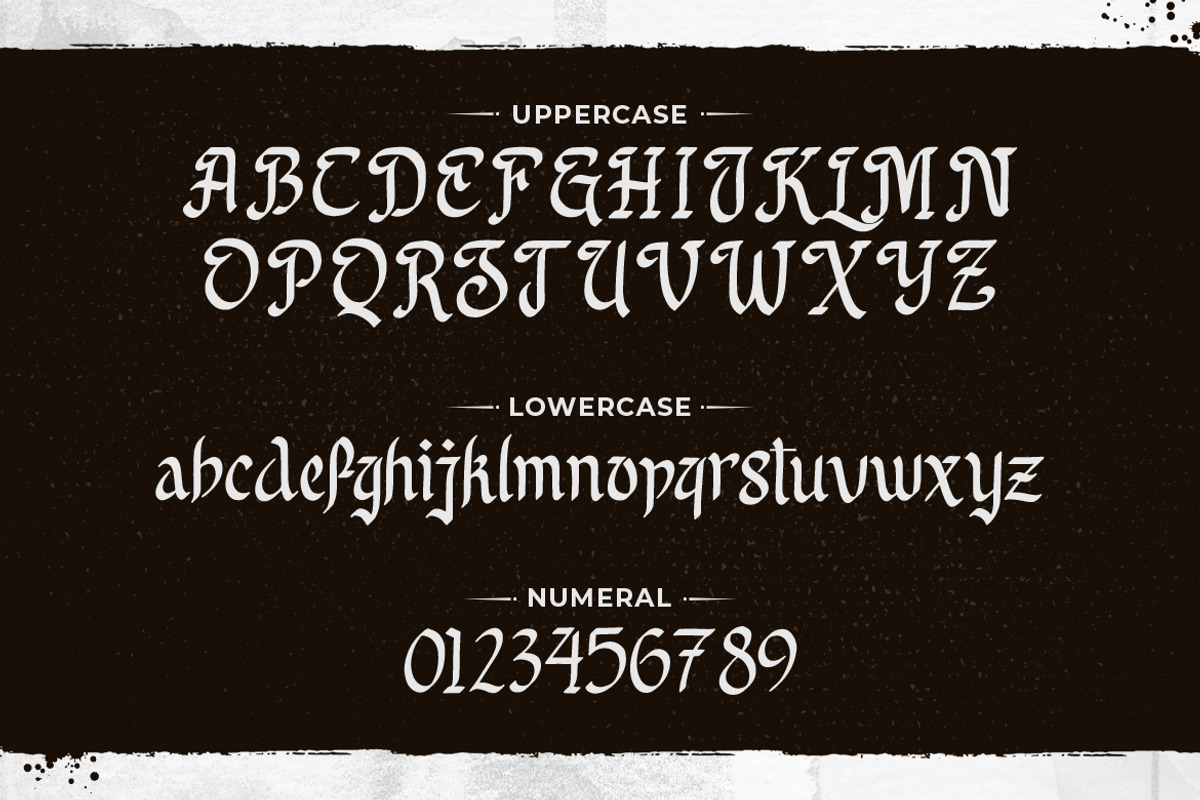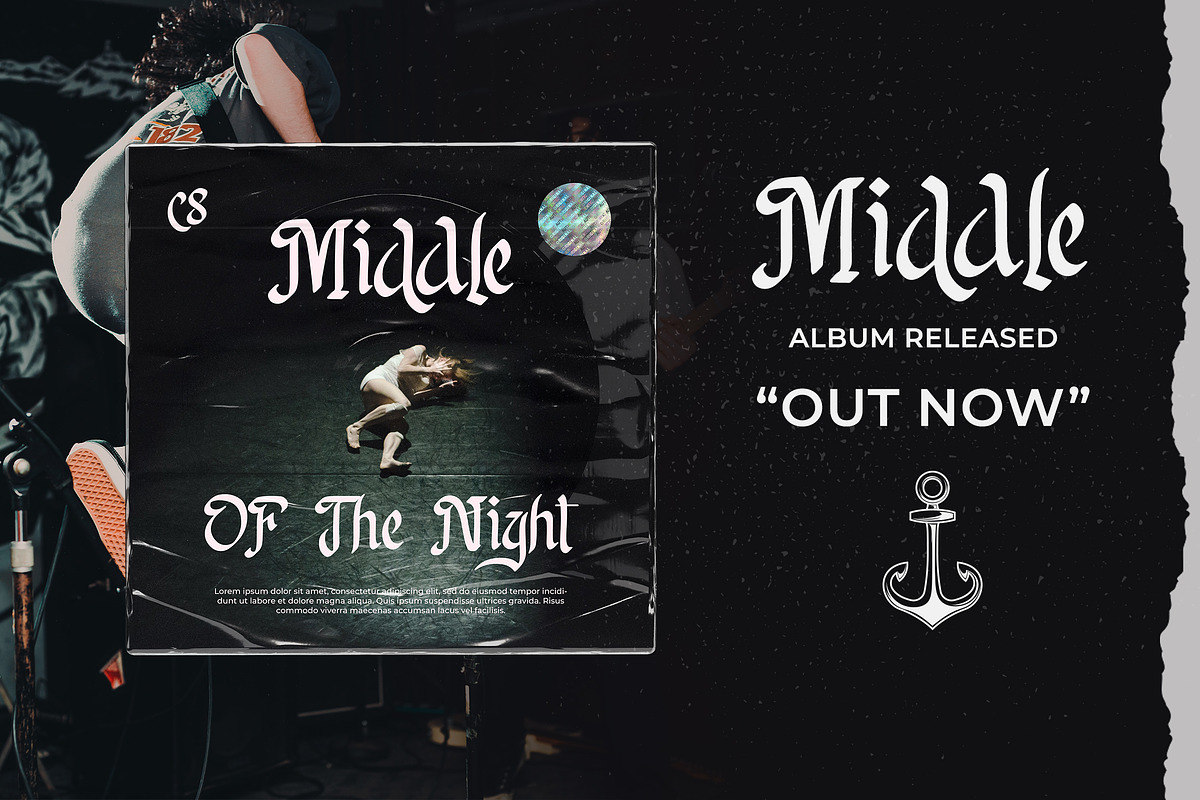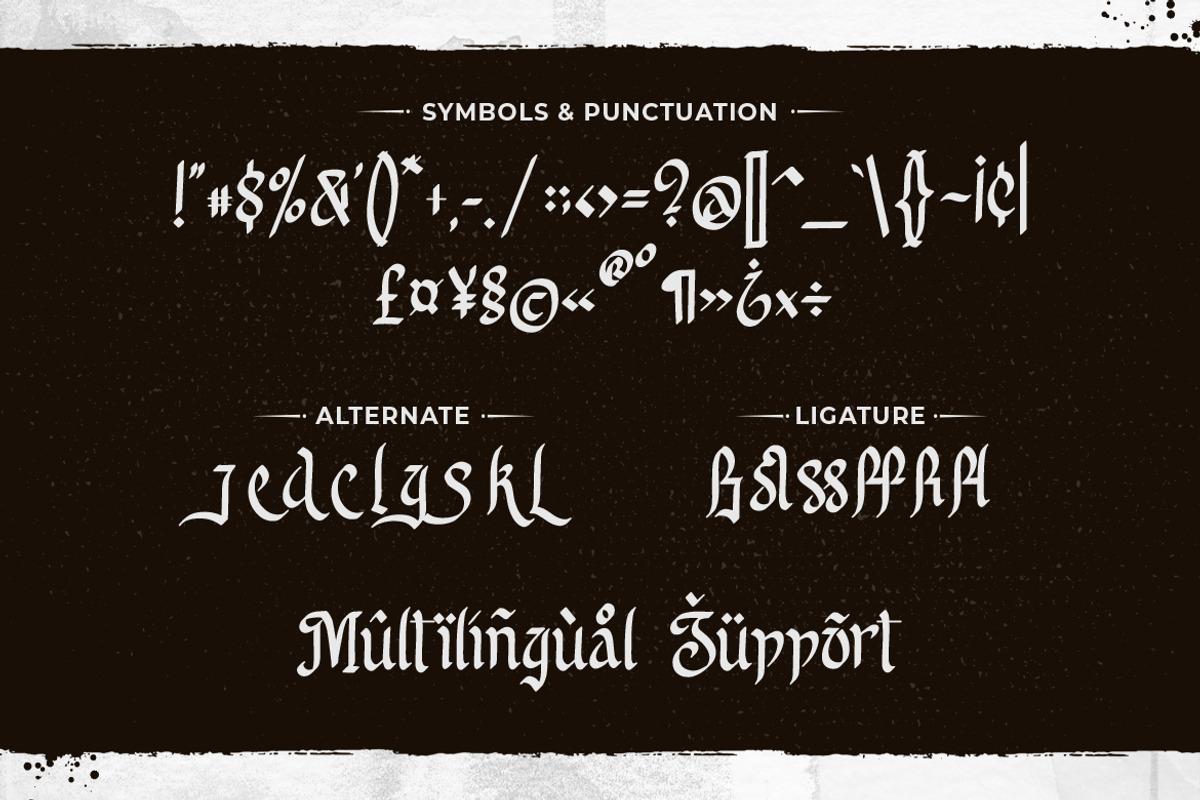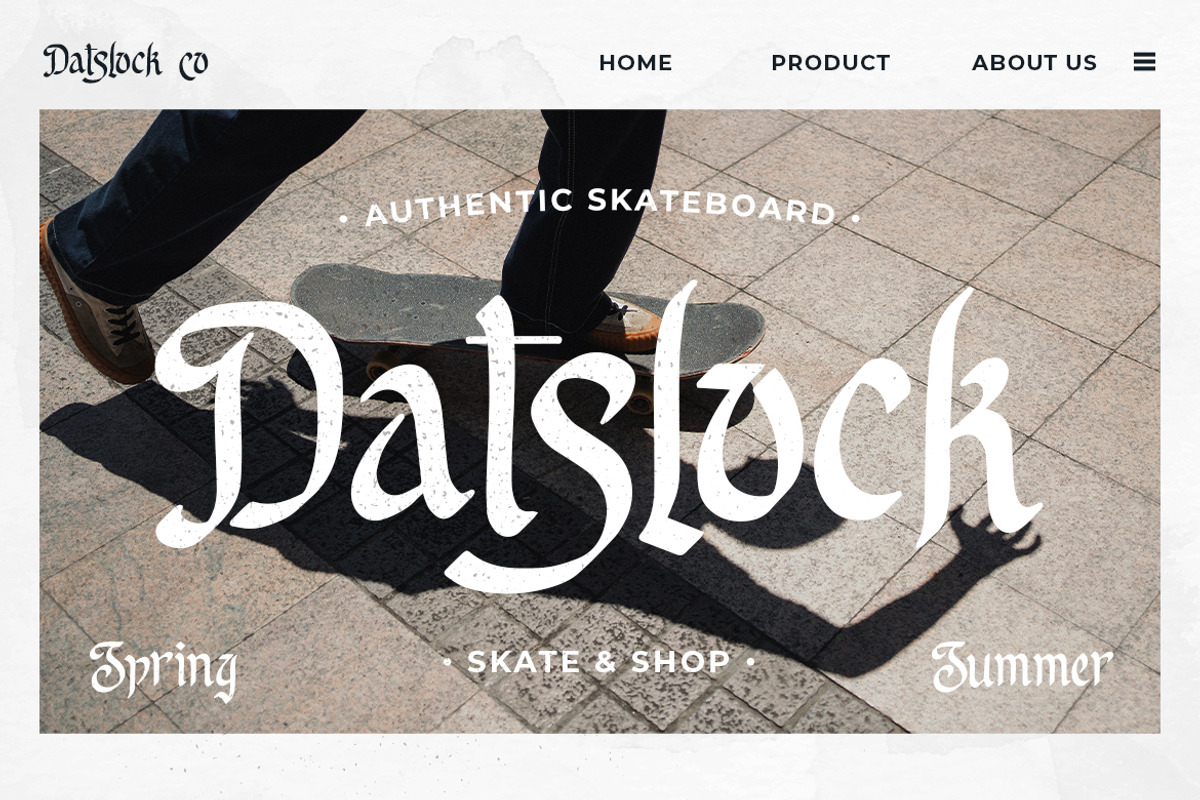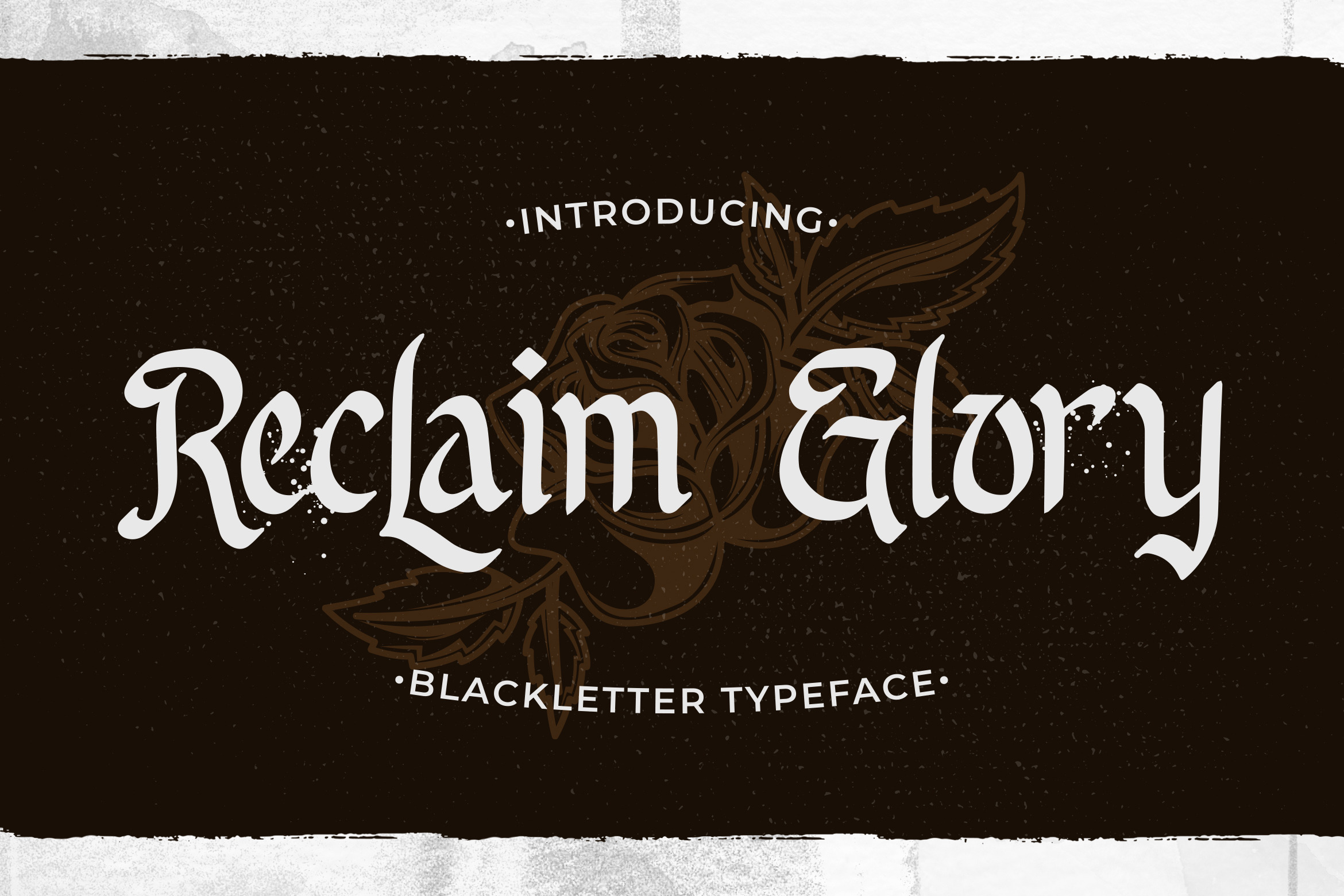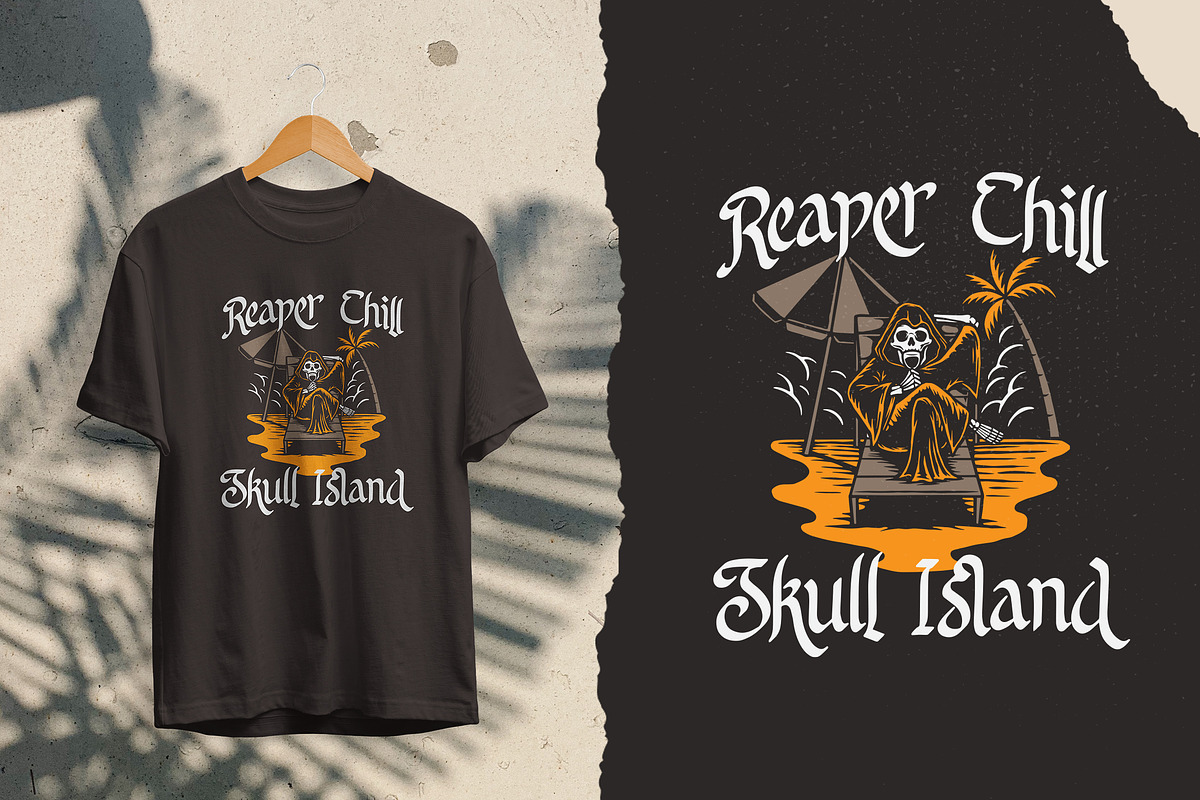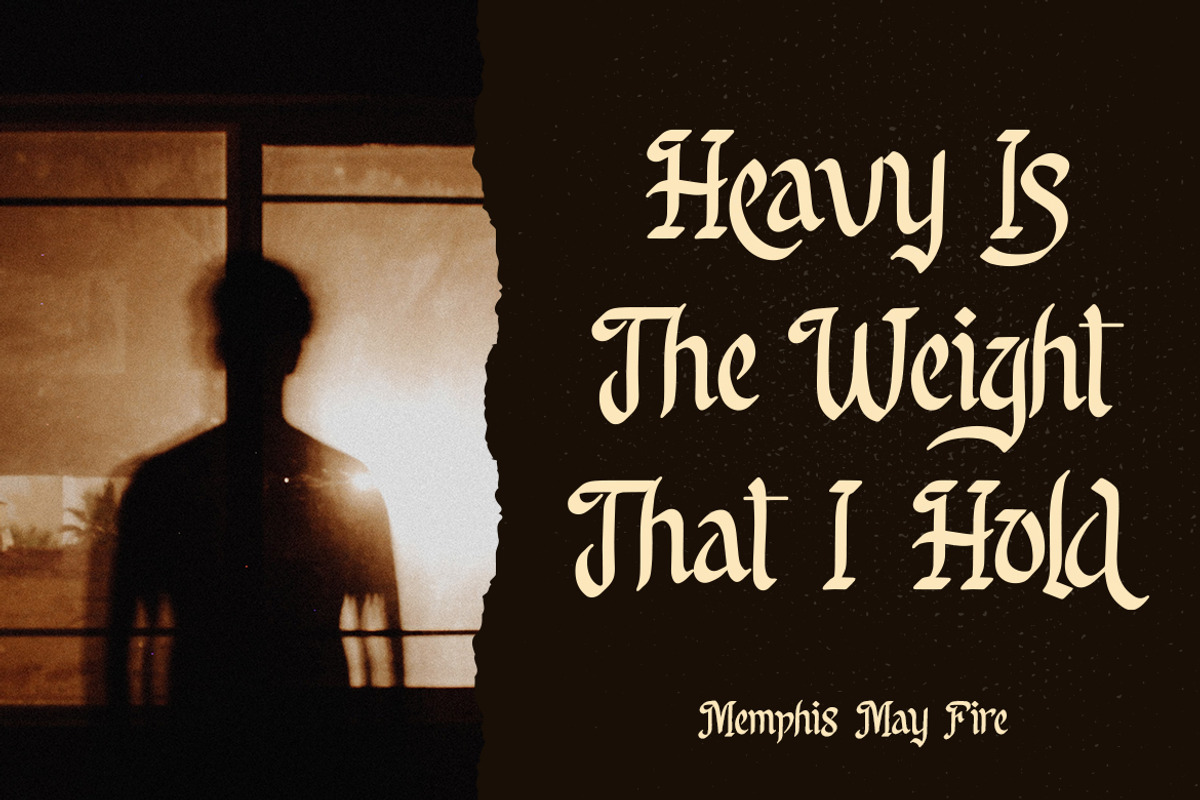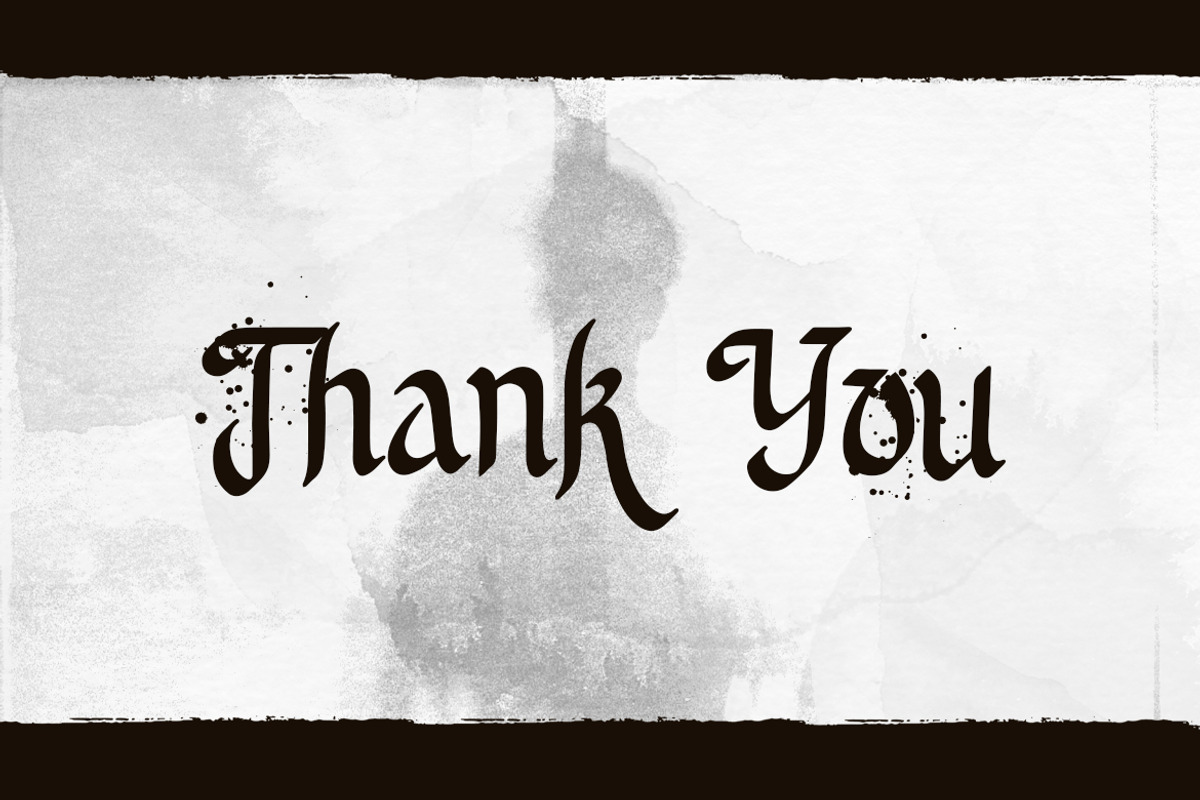
Reclaim Glory - Blackletter Typeface
Reclaim Glory is a cool, gothic and imposing blackletter font. This distinct font could be added to a wide spectrum of creations, such as labels, branding, logos and so on.
- Symbols & Punctuation
- Numeral